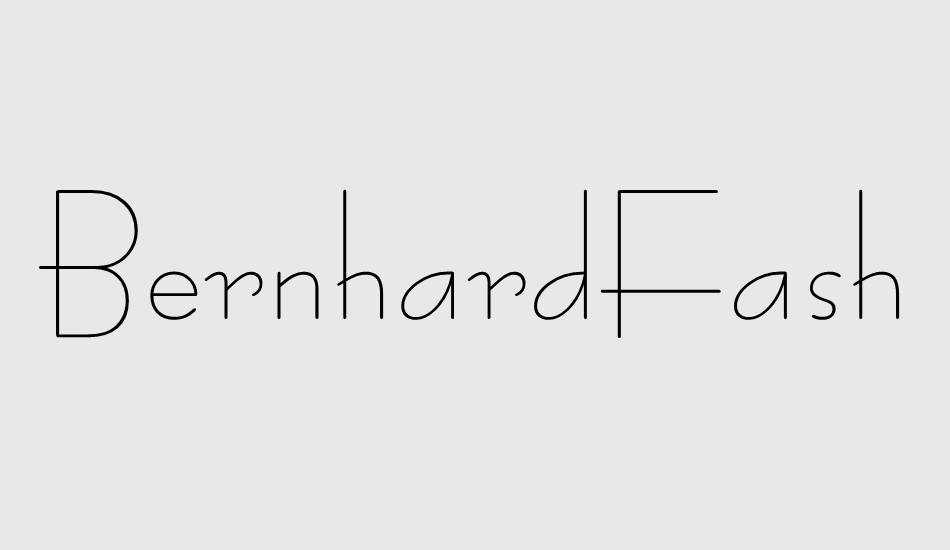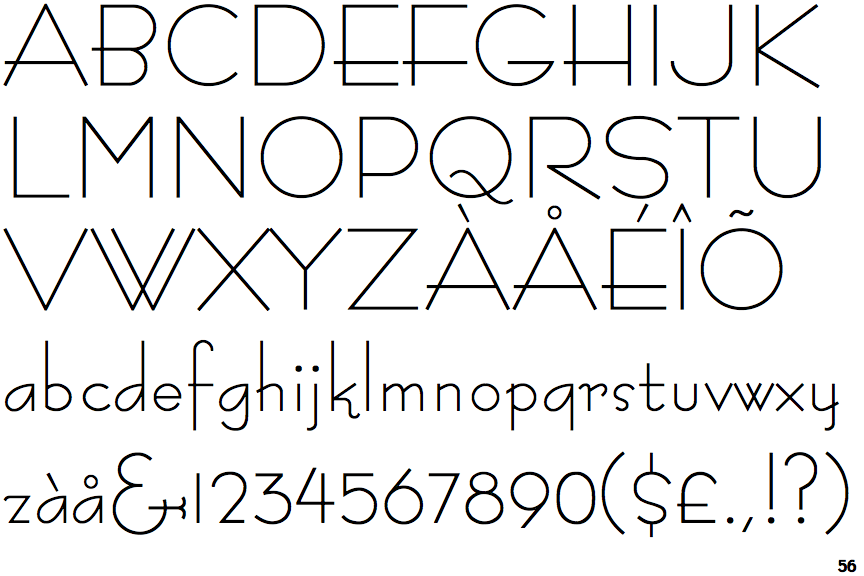
Bernhard Fashion Font
Bernhard Fashion Font - Web bernhard fashion std regular: Web bernhard fashion is a fine line sans serif typeface designed by lucian bernhard in 1929. Web bernhard fashion font family was designed by lucian bernhard and published by bitstream. Web bernhard fashion is a fine line sans serif typeface designed by lucian bernhard in 1929. Bernhard fashion contains 1 styles. Use the bernhard fashion font for posters, book covers, promotional material and packaging. Use the bernhard fashion font for posters, book covers, promotional material and packaging.
Use the bernhard fashion font for posters, book covers, promotional material and packaging. Use the bernhard fashion font for posters, book covers, promotional material and packaging. Bernhard fashion contains 1 styles. Web bernhard fashion font family was designed by lucian bernhard and published by bitstream. Web bernhard fashion is a fine line sans serif typeface designed by lucian bernhard in 1929. Web bernhard fashion is a fine line sans serif typeface designed by lucian bernhard in 1929. Web bernhard fashion std regular:
Bernhard fashion contains 1 styles. Use the bernhard fashion font for posters, book covers, promotional material and packaging. Web bernhard fashion is a fine line sans serif typeface designed by lucian bernhard in 1929. Web bernhard fashion is a fine line sans serif typeface designed by lucian bernhard in 1929. Web bernhard fashion std regular: Use the bernhard fashion font for posters, book covers, promotional material and packaging. Web bernhard fashion font family was designed by lucian bernhard and published by bitstream.
Bernhard Fashion Font
Use the bernhard fashion font for posters, book covers, promotional material and packaging. Web bernhard fashion is a fine line sans serif typeface designed by lucian bernhard in 1929. Use the bernhard fashion font for posters, book covers, promotional material and packaging. Bernhard fashion contains 1 styles. Web bernhard fashion std regular:
Bernhard Fashion Font GraphicUX
Bernhard fashion contains 1 styles. Web bernhard fashion is a fine line sans serif typeface designed by lucian bernhard in 1929. Web bernhard fashion std regular: Web bernhard fashion is a fine line sans serif typeface designed by lucian bernhard in 1929. Web bernhard fashion font family was designed by lucian bernhard and published by bitstream.
Web bernhard fashion is a fine line sans serif typeface designed by lucian bernhard in 1929. Web bernhard fashion is a fine line sans serif typeface designed by lucian bernhard in 1929. Web bernhard fashion font family was designed by lucian bernhard and published by bitstream. Use the bernhard fashion font for posters, book covers, promotional material and packaging. Use.
Bernhard fashion contains 1 styles. Web bernhard fashion font family was designed by lucian bernhard and published by bitstream. Web bernhard fashion is a fine line sans serif typeface designed by lucian bernhard in 1929. Use the bernhard fashion font for posters, book covers, promotional material and packaging. Web bernhard fashion is a fine line sans serif typeface designed by.
Web bernhard fashion std regular: Use the bernhard fashion font for posters, book covers, promotional material and packaging. Web bernhard fashion font family was designed by lucian bernhard and published by bitstream. Web bernhard fashion is a fine line sans serif typeface designed by lucian bernhard in 1929. Use the bernhard fashion font for posters, book covers, promotional material and.
Bernhard Fashion Com Font Download Free for Desktop & Webfont
Use the bernhard fashion font for posters, book covers, promotional material and packaging. Web bernhard fashion is a fine line sans serif typeface designed by lucian bernhard in 1929. Web bernhard fashion is a fine line sans serif typeface designed by lucian bernhard in 1929. Web bernhard fashion std regular: Use the bernhard fashion font for posters, book covers, promotional.
Bernhard Fashion Font Free Font
Web bernhard fashion is a fine line sans serif typeface designed by lucian bernhard in 1929. Use the bernhard fashion font for posters, book covers, promotional material and packaging. Use the bernhard fashion font for posters, book covers, promotional material and packaging. Bernhard fashion contains 1 styles. Web bernhard fashion std regular:
bernhard fashion bt bold navypantsweddingoutfitmen
Use the bernhard fashion font for posters, book covers, promotional material and packaging. Use the bernhard fashion font for posters, book covers, promotional material and packaging. Web bernhard fashion is a fine line sans serif typeface designed by lucian bernhard in 1929. Bernhard fashion contains 1 styles. Web bernhard fashion font family was designed by lucian bernhard and published by.
Bernhard Fashion CG Font FontYukle
Use the bernhard fashion font for posters, book covers, promotional material and packaging. Web bernhard fashion std regular: Use the bernhard fashion font for posters, book covers, promotional material and packaging. Web bernhard fashion is a fine line sans serif typeface designed by lucian bernhard in 1929. Bernhard fashion contains 1 styles.
Bernhard Fashion Font YouWorkForThem
Use the bernhard fashion font for posters, book covers, promotional material and packaging. Web bernhard fashion is a fine line sans serif typeface designed by lucian bernhard in 1929. Web bernhard fashion std regular: Use the bernhard fashion font for posters, book covers, promotional material and packaging. Web bernhard fashion font family was designed by lucian bernhard and published by.
Web Bernhard Fashion Is A Fine Line Sans Serif Typeface Designed By Lucian Bernhard In 1929.
Use the bernhard fashion font for posters, book covers, promotional material and packaging. Web bernhard fashion std regular: Use the bernhard fashion font for posters, book covers, promotional material and packaging. Web bernhard fashion font family was designed by lucian bernhard and published by bitstream.
Bernhard Fashion Contains 1 Styles.
Web bernhard fashion is a fine line sans serif typeface designed by lucian bernhard in 1929.